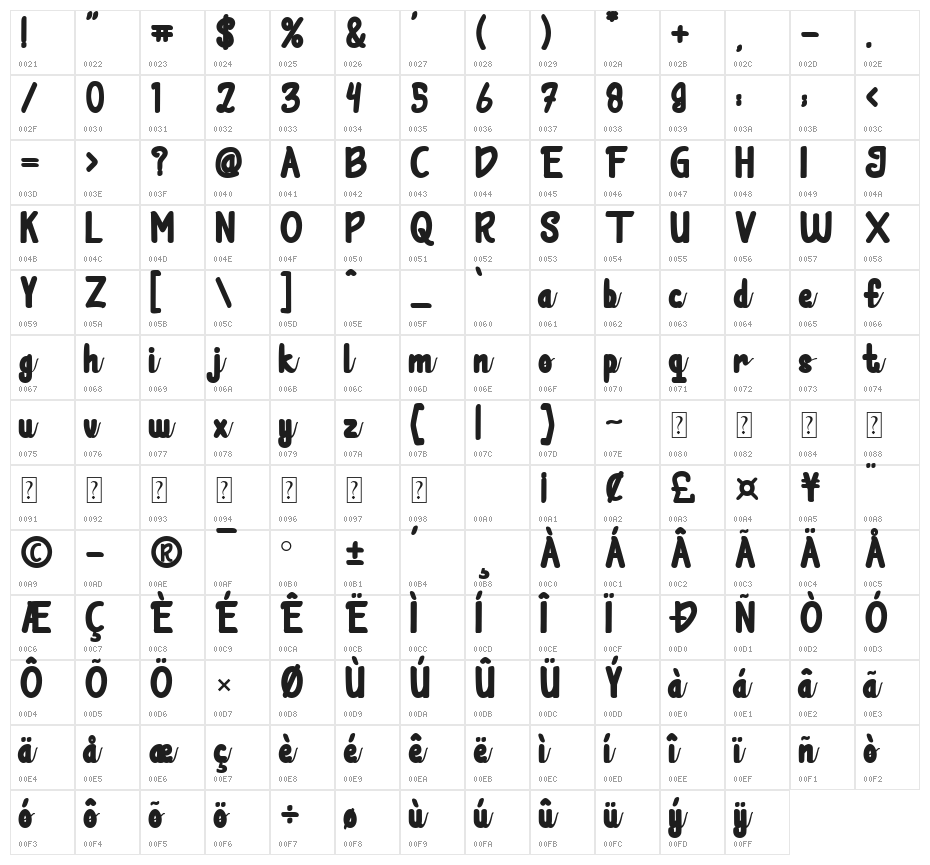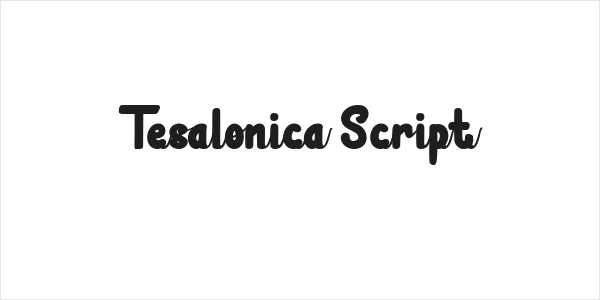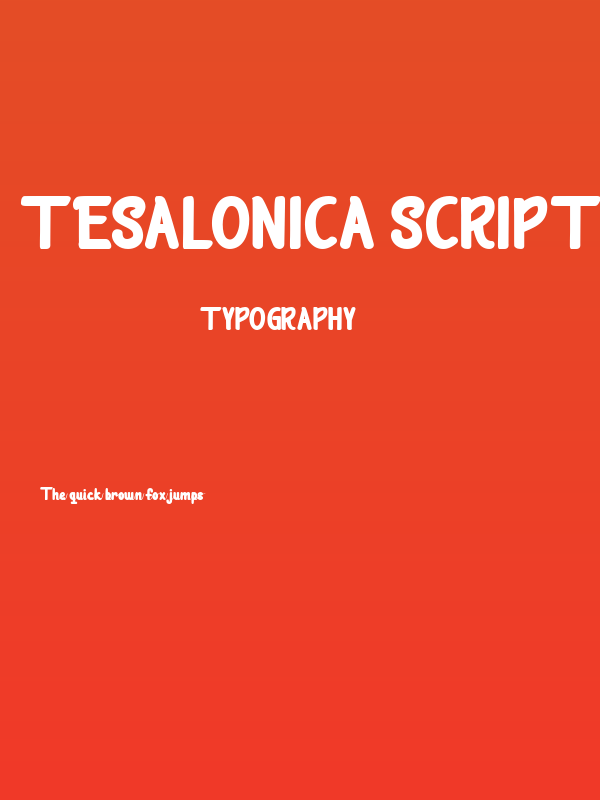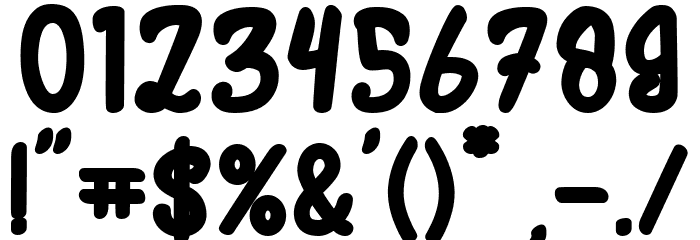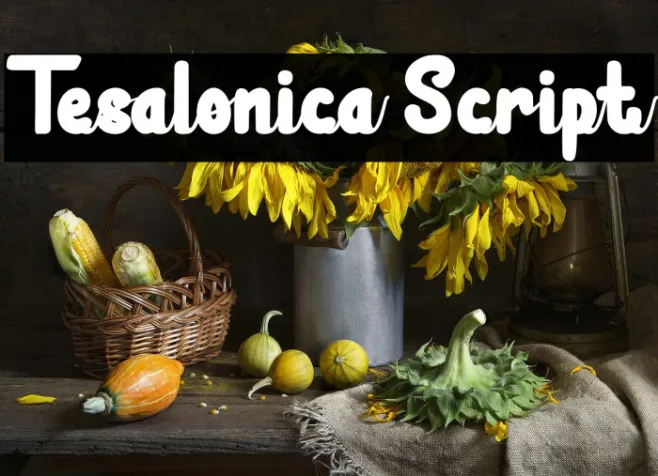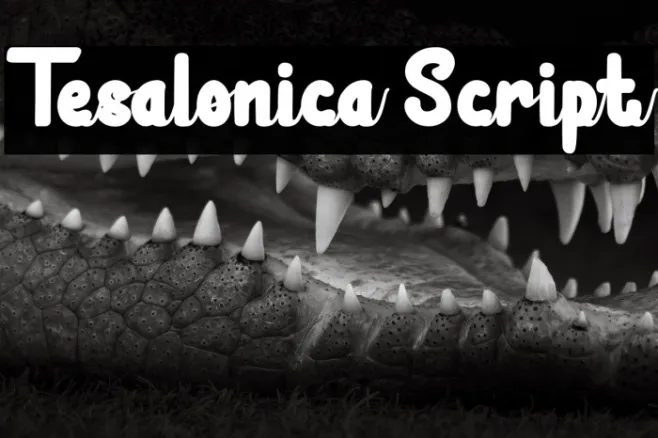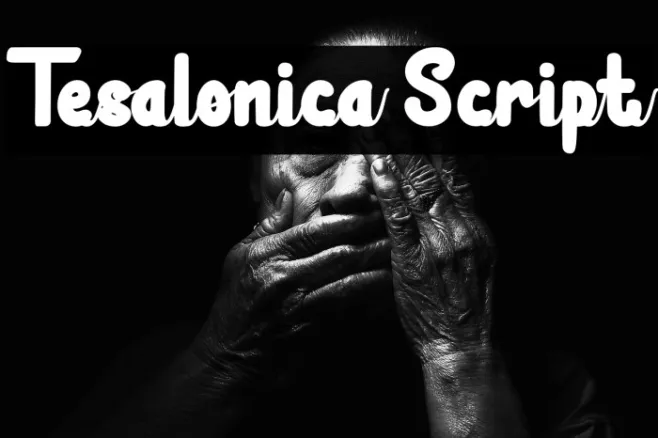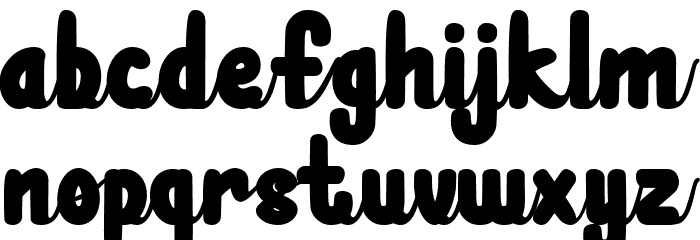
Tesalonica Script Font
Tesalonica Script Description
This font features a bold and playful script style, characterized by its thick, rounded strokes and smooth curves. The uppercase letters are bold and slightly condensed, while the lowercase letters exhibit a more flowing, connected script style, adding a dynamic and lively feel. The numbers and special characters maintain the boldness and rounded edges, ensuring consistency throughout. This font's design is both approachable and energetic, making it suitable for projects that require a friendly and informal touch.
| Proposed Projects | Ideal for children's books, playful branding, greeting cards, and social media graphics. |